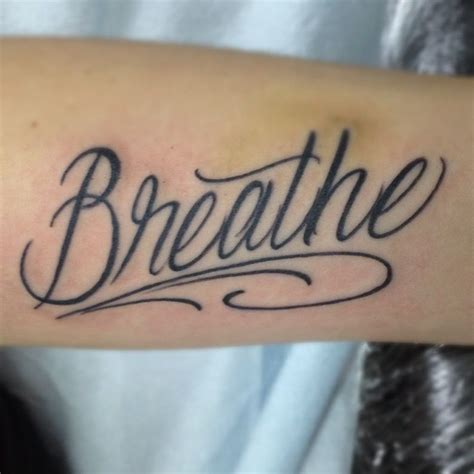
Nice Script Font For Tattoo - Best Font For Tattoo Quotes. QuotesGram - The set includes circles, swashes, stars, animal shapes, plants, dragons and more.. Tattoo are not just a structure for body change this is additionally stunning quality tribute to incite state of mind and sentiments. Every font is free to download! Tattoos letters and fonts symbols & emoji. Im getting the entire corinthians scripture verse. Looking for tattoo script fonts?
Every font is free to download! Tattoo fonts perfectly carry this element all the while adding in some thick and bold strokes. Tattoos letters and fonts symbols & emoji. Find and save ideas about script tattoo fonts on pinterest, the world's catalog of ideas. Mardian is a tattoo style script font with classic and luxury look.
Best tattoo fonts for your vintage designs available for free + cool tattoo quotes ideas. The closest i could find was one called selfish but im worried it still may blur. Im getting the entire corinthians scripture verse. ✓ click to find the best 255 free fonts in the tattoo script style. Simply input your text, choose an available font, and our generator takes care of the rest. 42 best free tattoo fonts examples. This is an attractive handwritten tattoo font with superb swashes. Webcomic bros, comic(28 fonts), en.
The tattoo script is big, bold, and not for a website or person who wants to present themselves in any way remotely subdued. / 9+ script tattoo fonts. Free fonts for commercial use · new & fresh fonts · most popular fonts · alphabetic fonts · largest font families · trending fonts. Do not miss our most special fonts for your tattoos, drawings, prints, murals. The set includes circles, swashes, stars, animal shapes, plants, dragons and more. ✓ click to find the best 255 free fonts in the tattoo script style. Script fonts for tattoos is one way to express your unique creativity. It includes serifs in the strokes and ragged edges. Find and save ideas about script tattoo fonts on pinterest, the world's catalog of ideas. Statement tattoos are all they hype now, especially for book lovers or music lovers who want to carry their favorite quote or lyrics on their skin. Simply input your text, choose an available font, and our generator takes care of the rest. Mardian is a tattoo style script font with classic and luxury look. The demo version is only available for free download.
So, if your design is lacking stunning calligraphy taste, this font is. And the jimmy font family includes a. Pure text tattoos become more and more trendy these days since more and more people choose the most popular fonts for tattoos are script fonts, which usually look personal and unique, such as calligraphy and handwriting. ✓ click to find the best 255 free fonts in the tattoo script style. Free fonts for commercial use · new & fresh fonts · most popular fonts · alphabetic fonts · largest font families · trending fonts.
This is an attractive handwritten tattoo font with superb swashes. Script font packs can be downloaded for free, or for a fee, from various sites our super easy tattoo script font generator is a snap to use. Every font is free to download! We have 27 free tattoo, script fonts to offer for direct downloading · 1001 fonts is your favorite site for free fonts since 2001. Please, share link to our service, to activate all fonts. Design & ink yourself with style. Do not miss our most special fonts for your tattoos, drawings, prints, murals. You can combine these to make one nice big script tattoo or you can wear each one separately.
Script font packs can be downloaded for free, or for a fee, from various sites our super easy tattoo script font generator is a snap to use. You can combine these to make one nice big script tattoo or you can wear each one separately. Script font for tattoo ink | tattoos picture script tattoo fonts. Pure text tattoos become more and more trendy these days since more and more people choose the most popular fonts for tattoos are script fonts, which usually look personal and unique, such as calligraphy and handwriting. Angilla tattoo comes with a heavy script accompanied by nice swashes that can add an element of flair to lettering. Best tattoo fonts for your vintage designs available for free + cool tattoo quotes ideas. | see more about fonts for tattoos, pretty fonts and tattoo fonts. What better way to start off this collection than with an sadis makes a nice alternative if you're looking for something similar to arabic tattoo fonts. Free fonts for commercial use · new & fresh fonts · most popular fonts · alphabetic fonts · largest font families · trending fonts. Tattoo script font (graphicriver) (otf, ttf). Looking for tattoo script fonts? Statement tattoos are all they hype now, especially for book lovers or music lovers who want to carry their favorite quote or lyrics on their skin. If you are thinking of getting a statement tattoo, you'll need a font style that embodies that message and is easy to read and look at.
Please, share link to our service, to activate all fonts. Here are some typography suggestions to help you design the tattoo of your dreams. Webcomic bros, comic(28 fonts), en. Script fonts are super popular in tattoo designs nowadays. / 9+ script tattoo fonts.
Here are some typography suggestions to help you design the tattoo of your dreams. So, if your design is lacking stunning calligraphy taste, this font is. Simply input your text, choose an available font, and our generator takes care of the rest. And the jimmy font family includes a. Every font is free to download! It includes serifs in the strokes and ragged edges. ✓ click to find the best 255 free fonts in the tattoo script style. Please, share link to our service, to activate all fonts.
Simply input your text, choose an available font, and our generator takes care of the rest.
Tattoo are not just a structure for body change this is additionally stunning quality tribute to incite state of mind and sentiments. You can combine these to make one nice big script tattoo or you can wear each one separately. If you are thinking of getting a statement tattoo, you'll need a font style that embodies that message and is easy to read and look at. Free fonts for commercial use · new & fresh fonts · most popular fonts · alphabetic fonts · largest font families · trending fonts. Eyeliner tattoo fhabgbaanc fhabgbbbnc fhabgbccnc fhabgbdnc fhabgbstnc fhabgpstnc fhabgtornc fhamtrncv fhamtrofncv fhastrofncv fty_ironhorse_ncv fty_ironrider_ncv. At the end of the day, these are some of not only the most iconic and classic styles of fonts used for tattoos, but these are also some of the most unique and interesting fonts we. / 9+ script tattoo fonts. ✓ click to find the best 255 free fonts in the tattoo script style. Design & ink yourself with style. The set includes circles, swashes, stars, animal shapes, plants, dragons and more. Mardian is a tattoo style script font with classic and luxury look. Looking for tattoo script fonts? You can use this free ttf font as monogram font.